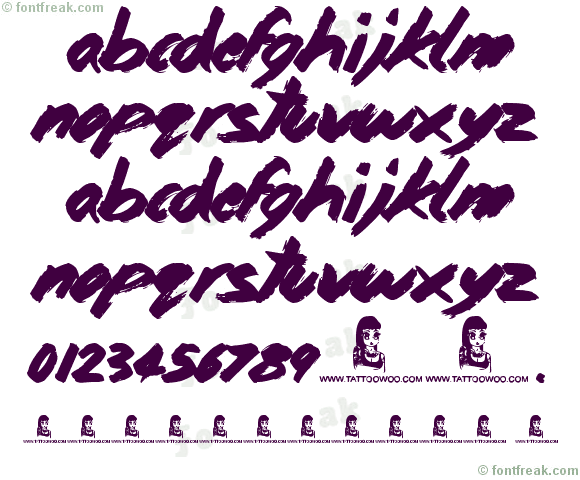
Home and Away
The "Home and Away" font by Jonathan S. Harris is a captivating handwritten typeface that exudes a sense of warmth and personal connection. This font is characterized by its expressive brush strokes, which give it a dynamic and informal feel. The stroke weight varies throughout the letters, creating a playful contrast that adds depth and character. The spacing is generous, ensuring legibility while maintaining a casual aesthetic. Decorative elements, such as the fluid lines and organic shapes, lend the font an artistic flair, making it suitable for a variety of creative projects.
Best utilized in settings where a human touch is desired, the "Home and Away" font is perfect for wedding invitations, where its romantic vibe can enhance the overall theme. It also shines in branding for cafes or restaurants, adding a personal touch to menus and signage. Additionally, this font works wonderfully for event posters, capturing attention with its unique style. Content creators looking to add a friendly tone to their social media graphics or blog headers will find it an excellent choice as well.
The target audience for this font includes graphic designers, small business owners, and content creators who are seeking a typeface that combines creativity with approachability. Its versatility allows it to fit seamlessly into various design contexts, making it a valuable asset for anyone looking to communicate warmth and authenticity.
What sets the "Home and Away" font apart is its ability to convey personality and emotion through its design. For those in search of a unique typeface that effortlessly blends style and function, the Home and Away font free download is a fantastic option to consider for your next project.